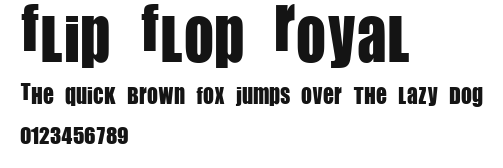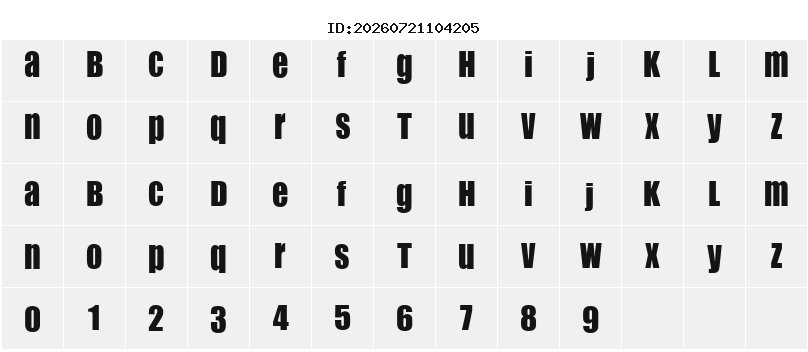
Flip Flop Royal Preview
• Font Name: Flip Flop Royal
• Full Font Name: Flip Flop Royal
About Flip Flop Royal.ttf
Flip Flop Royal.ttf is a modern, elegant sans-serif font designed for ultimate readability and visual harmony. Perfect for branding, headlines, web design, and print materials.